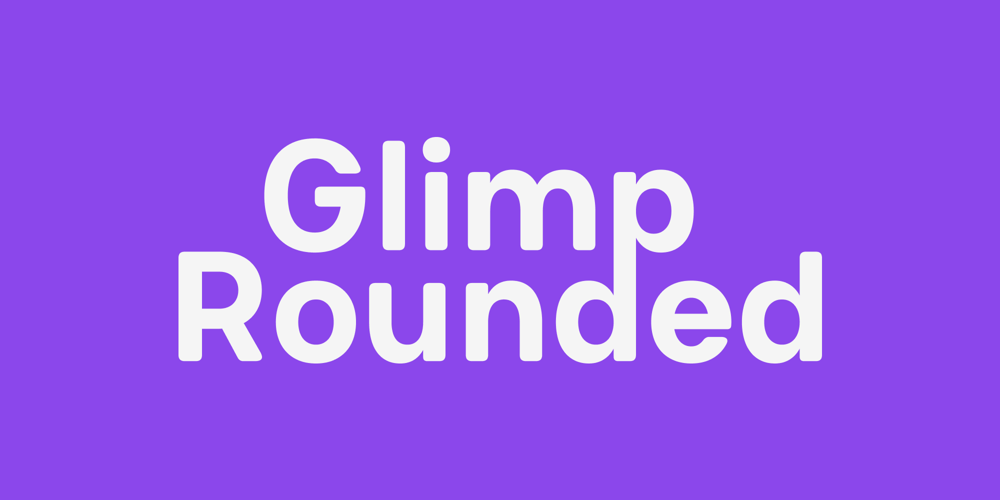
Glimp Rounded Font Family was designed by Abhishek Junghare and published by OneSevenPointFive. Glimp Rounded contains 54 styles and family package options. Glimp Rounded is a friendly-vibe addition to the Glimp family, offering a modern-geometric typeface with a touch of warmth.It has 3 widths, 9 weights, and corresponding italics, totol 54 styles. Providing a wide spectrum of design possibilities, from bold headlines to elegant body text. Whether for branding, web design, or any creative project, this font family is designed to be your go-to choice, packed with powerful opentype features to elevate your designs effortlessly. Note: Also available in Variable version